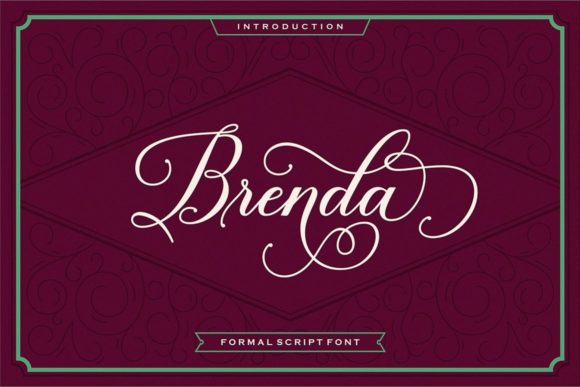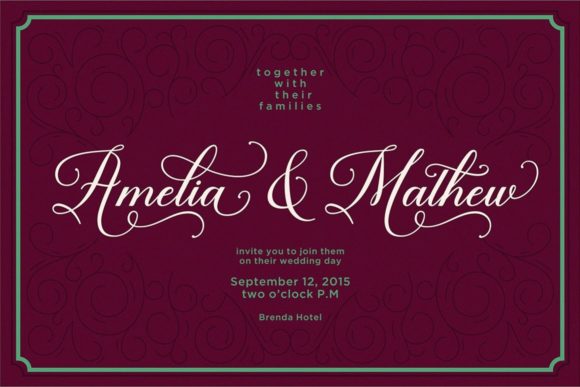
About Brenda Font
Brenda is a thin lettered and graceful script font that captivates with its ravishing style. Designed to add an extra touch of elegance to your projects, this font is versatile and well-suited for creating stunning wedding invitations, beautiful stationary art, eye-catching social media posts, and more. Brenda’s delicate lettering and graceful script make it a perfect choice for projects that demand a refined and sophisticated aesthetic.
The thin lettering of Brenda contributes to its elegant and modern appearance, providing a visually pleasing and contemporary look. Its graceful script style adds a sense of fluidity, creating a harmonious visual experience for your audience.
Whether you’re planning a wedding and need invitations that exude charm or creating social media content that stands out, Brenda adapts seamlessly to various design contexts. Its versatility ensures that your projects maintain a consistent and polished appearance, making a lasting impression.
The PUA encoding feature is a valuable addition, allowing easy access to all glyphs and swashes. This feature provides designers with the freedom to customize and personalize their designs effortlessly, adding unique touches that set their creations apart.
In summary, Brenda is more than just a font; it’s a thin lettered and graceful script that brings a ravishing style to your designs. Its versatility and PUA encoding make it a valuable asset for a wide array of creative projects. Let Brenda be the font that adds an extra layer of sophistication to your wedding invitations, stationary art, social media posts, and beyond.